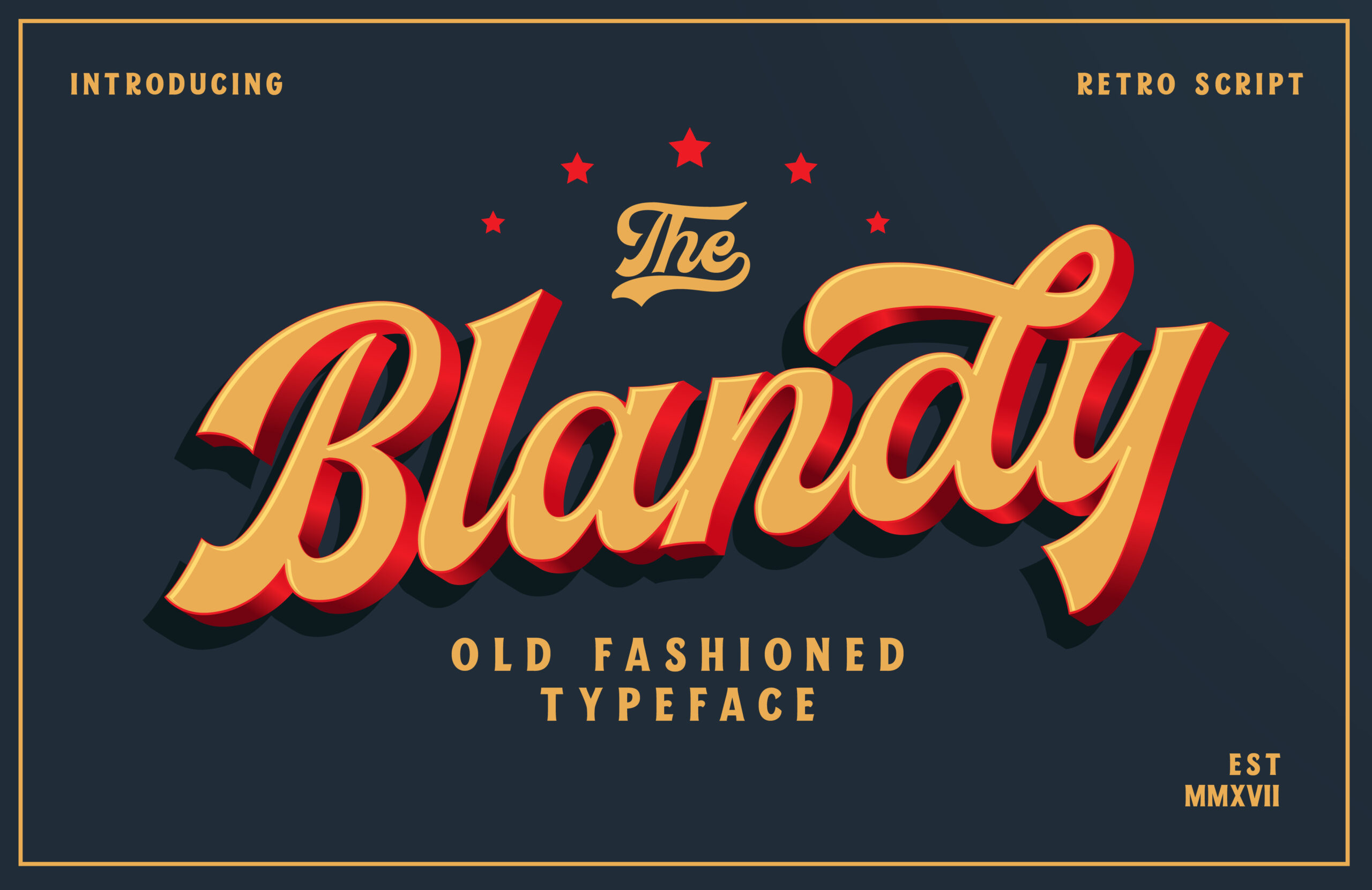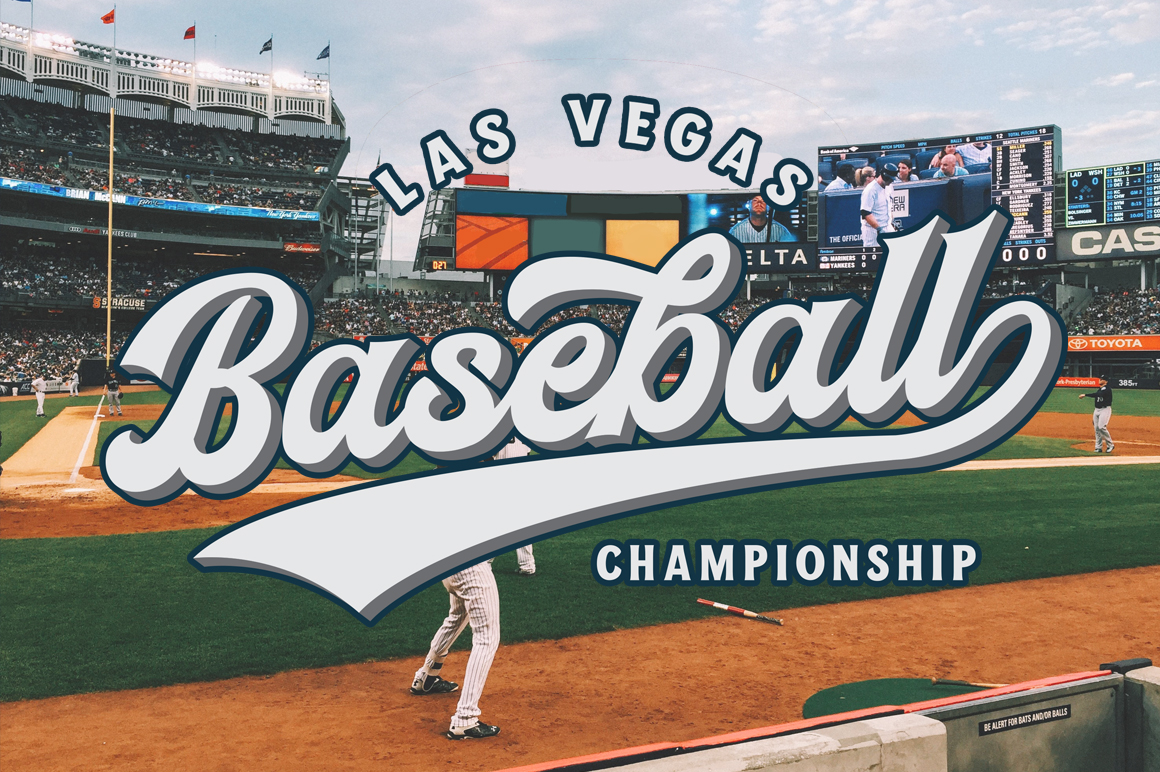
Blandy Font
About Blandy Font
Inspired by vintage designs, Blandy is an extremely adaptable font.
Made to resemble traditional sports typography, this font is the perfect choice for a multitude of bold design ideas.
This strong signage script is both glamorous and strong, making it a necessity to any font collection.